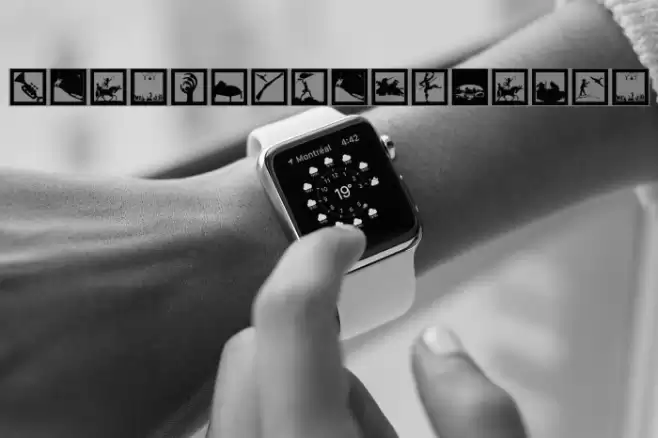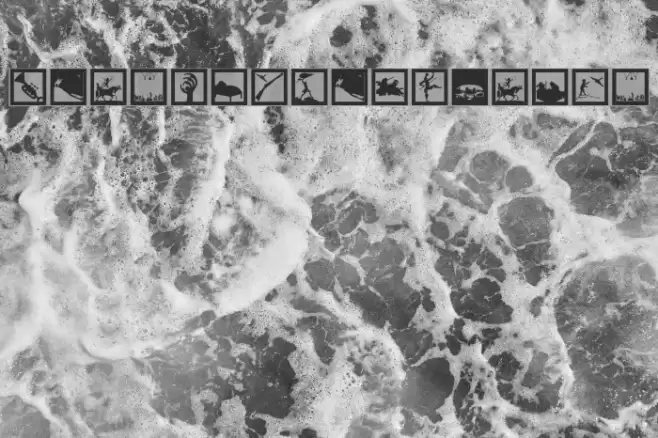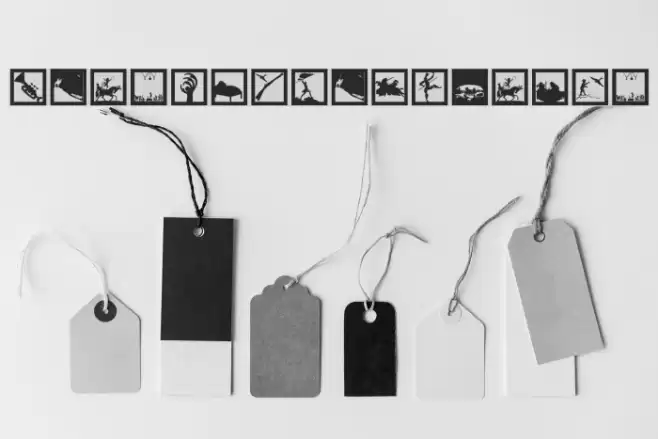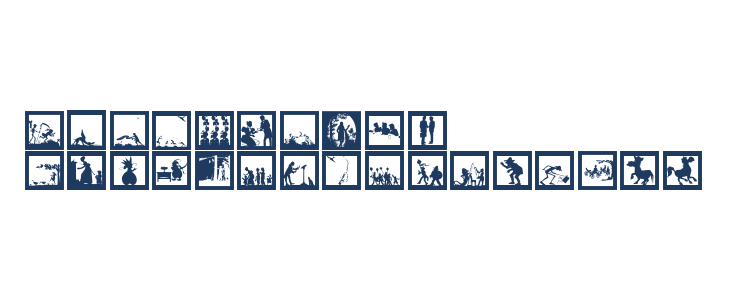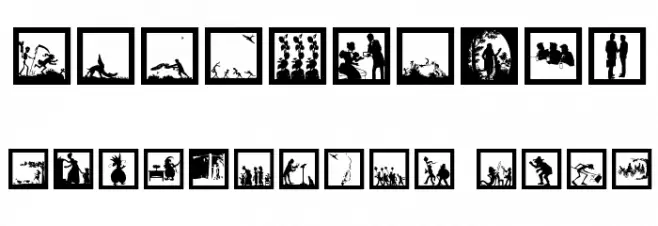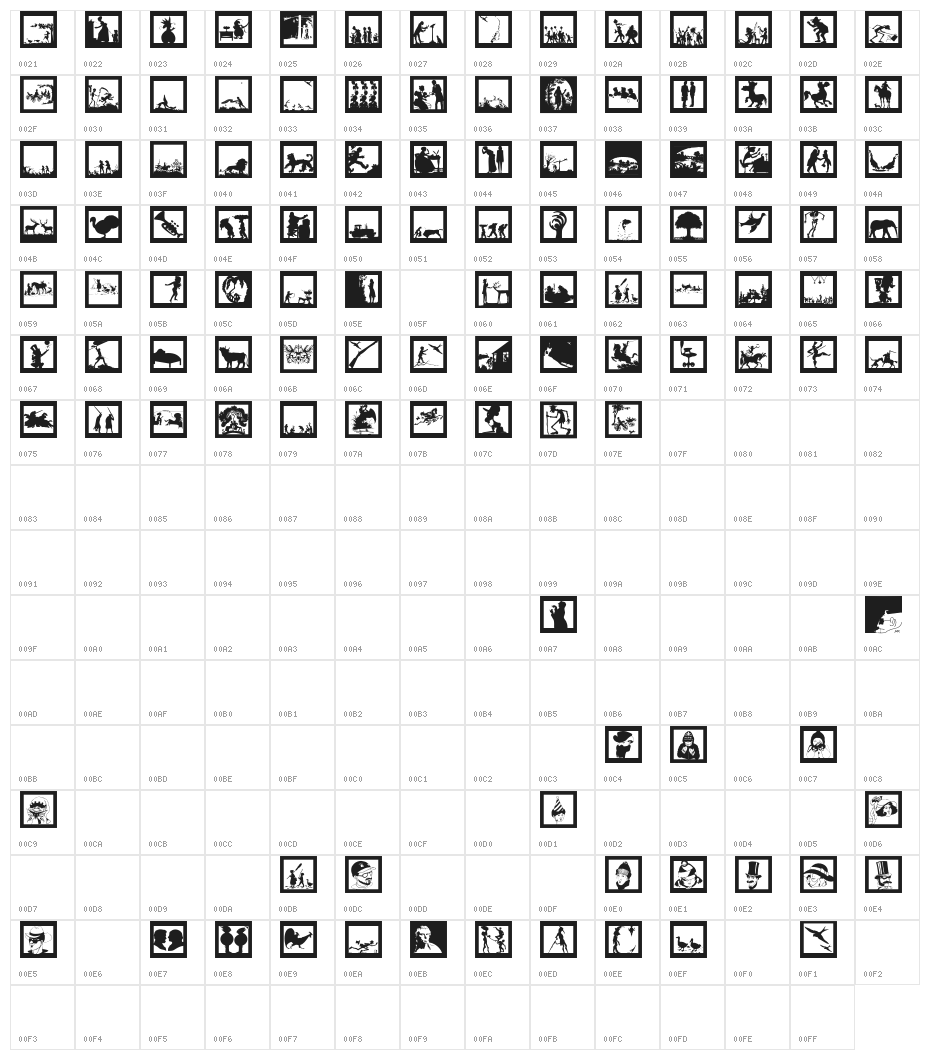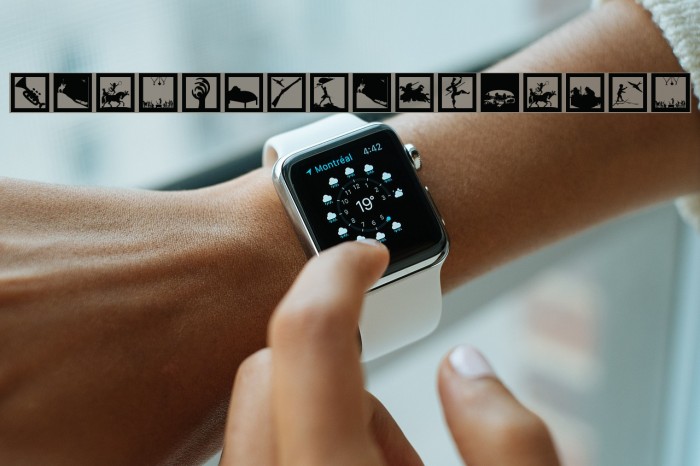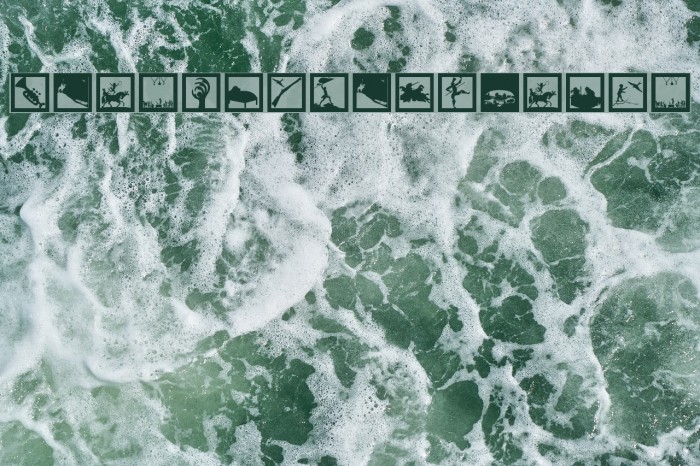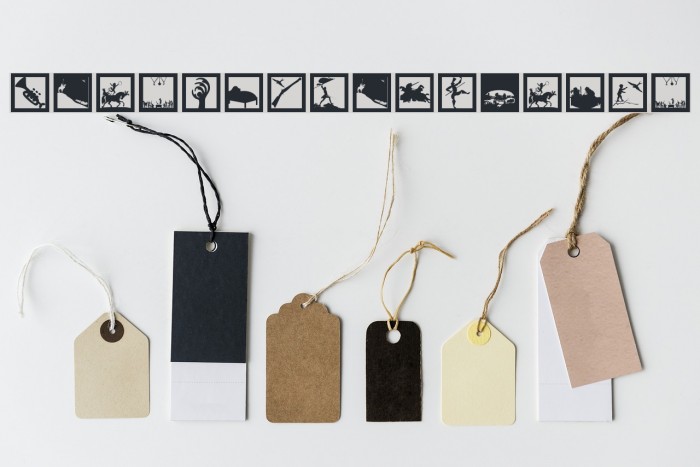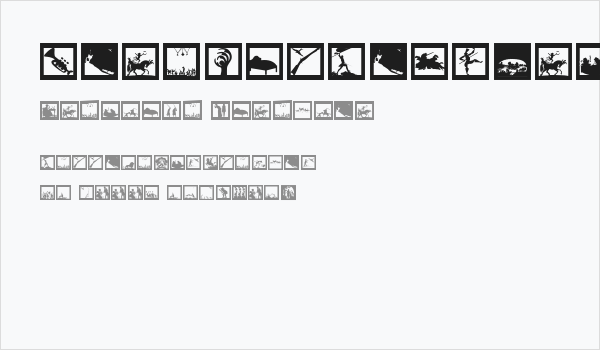
MoreSilhousFrame Font
MoreSilhousFrame Description
A decorative display font featuring highly detailed black-and-white silhouette illustrations within square frames, each representing a different letter, number, or symbol. The silhouettes depict various scenes, animals, and figures, creating a visually rich and narrative-driven style.
Decorative font with framed silhouette illustrations for each character from Uncategorized fonts.
- Proposed Projects: Book covers, posters, event invitations, themed branding, children’s materials, storytelling visuals.
- Overall Style: Decorative, Narrative, Artistic
- Use Case: Headlines, Logos, Posters, Themed Graphics